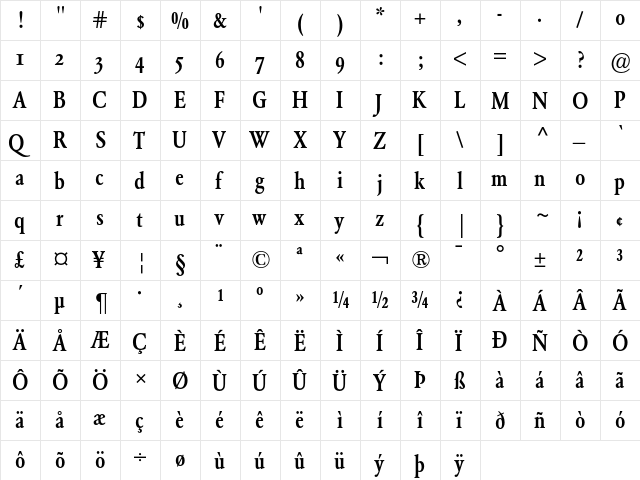
Garamond BE Medium Condensed Oldstyle Figures
Design Context for Garamond BE Typeface
Garamond BE brings classic typographic sensibility to the table — its serifs and measured letterforms reflect centuries of print heritage. Its narrow stance lets it pack a punch even in space-constrained designs.
Pro Tip: Use Garamond BE for editorial body copy and considered headline work. Pair with a neutral sans for UI elements or captions to create a classic hierarchy.